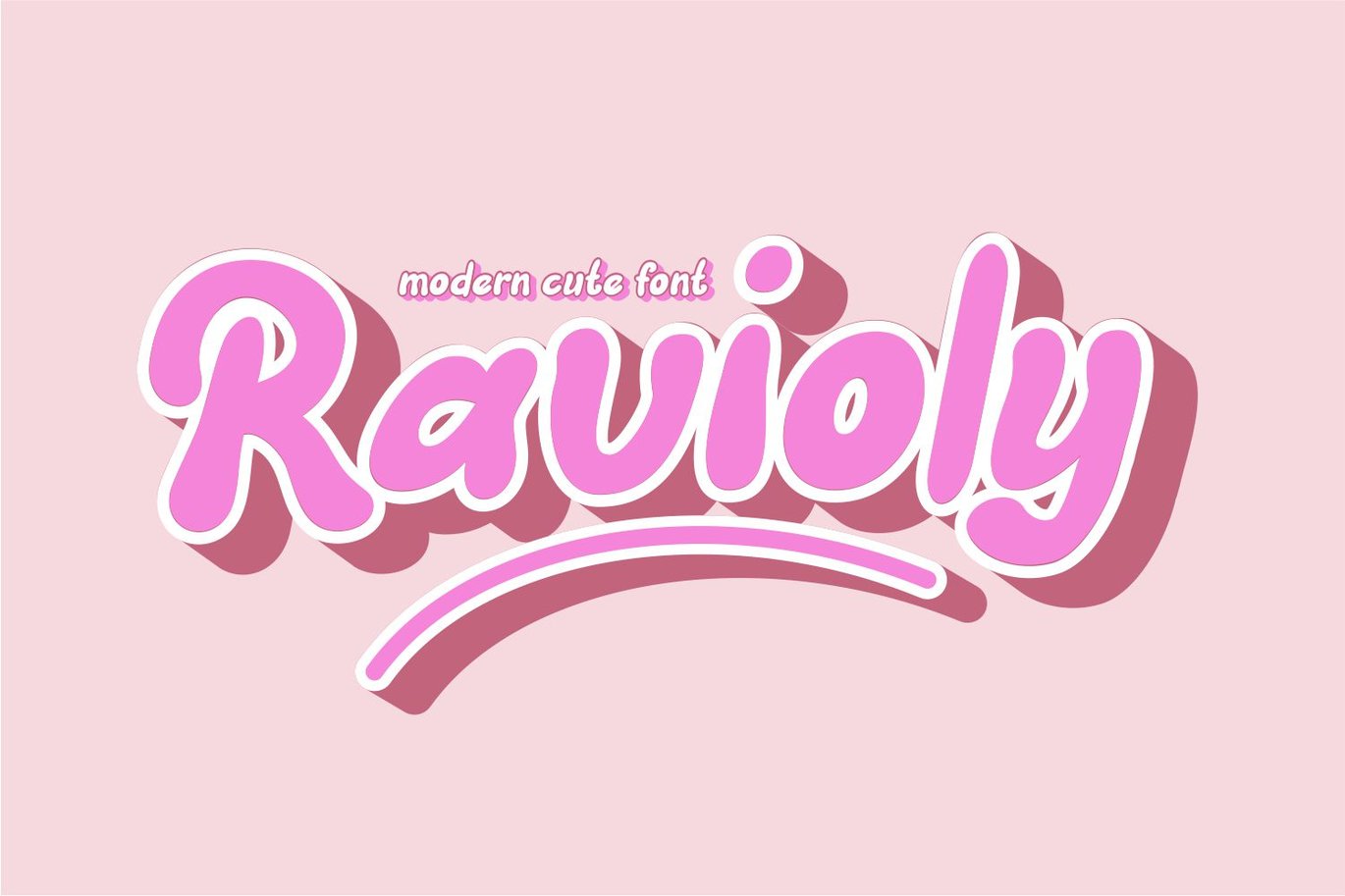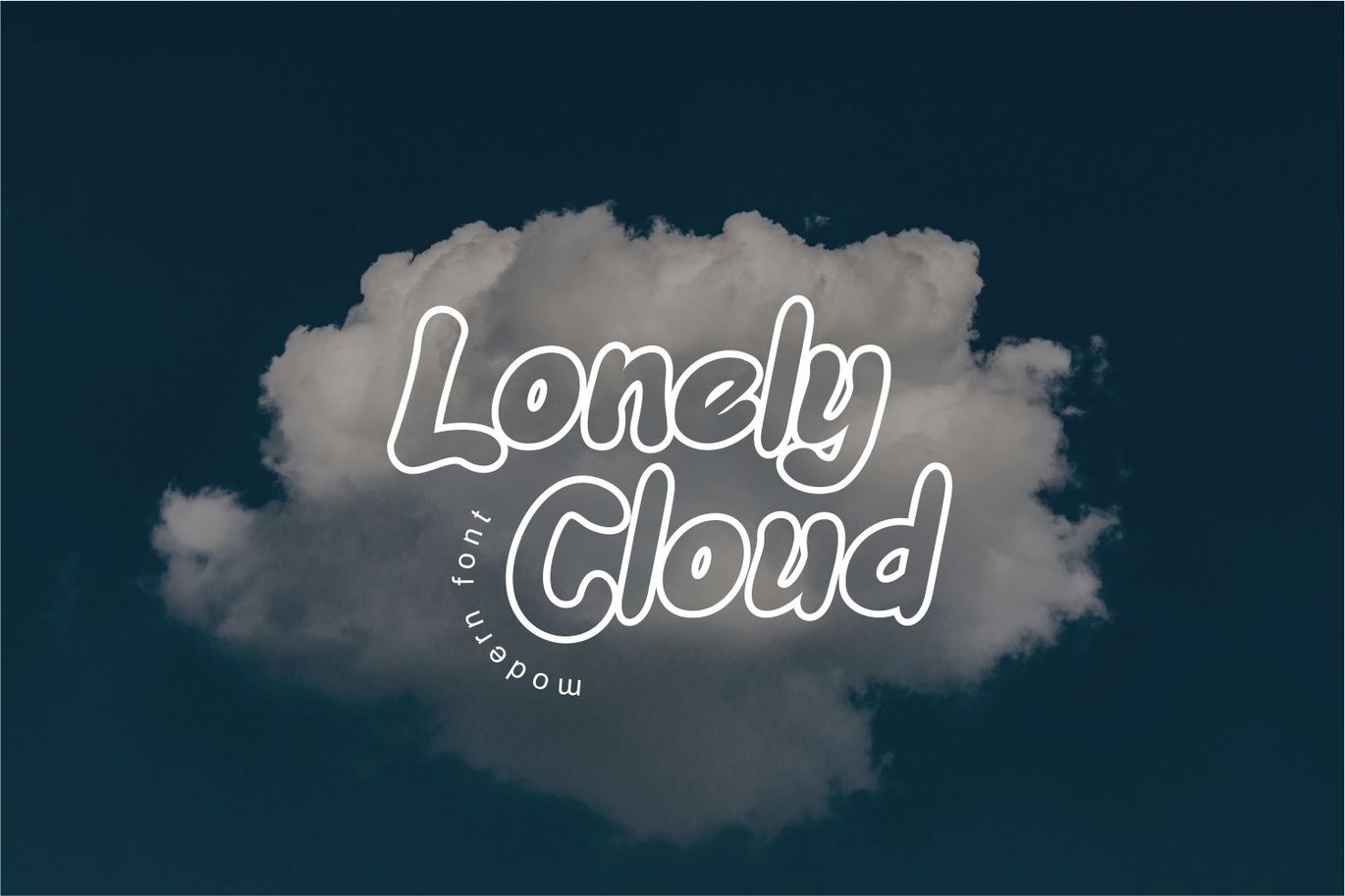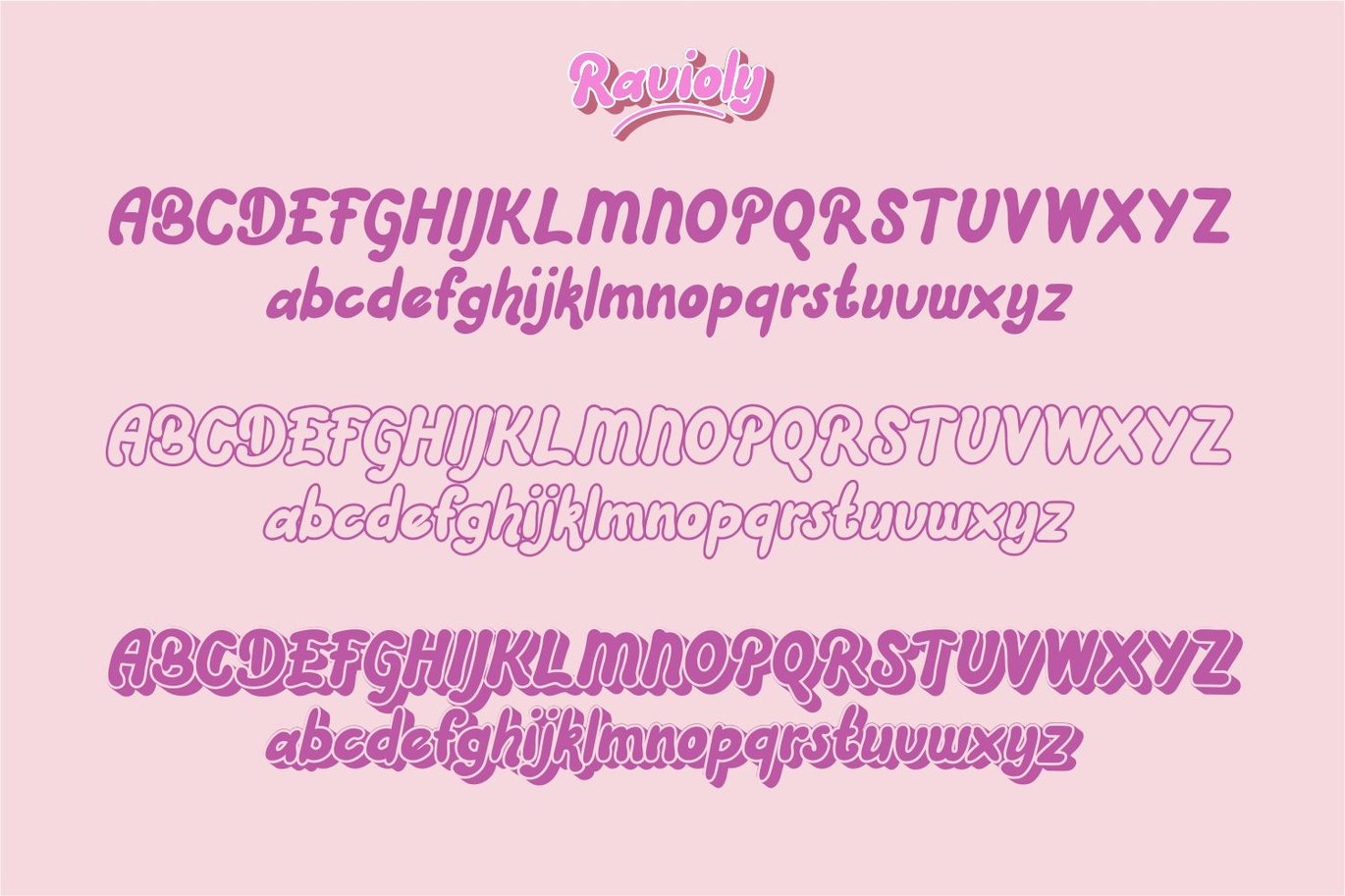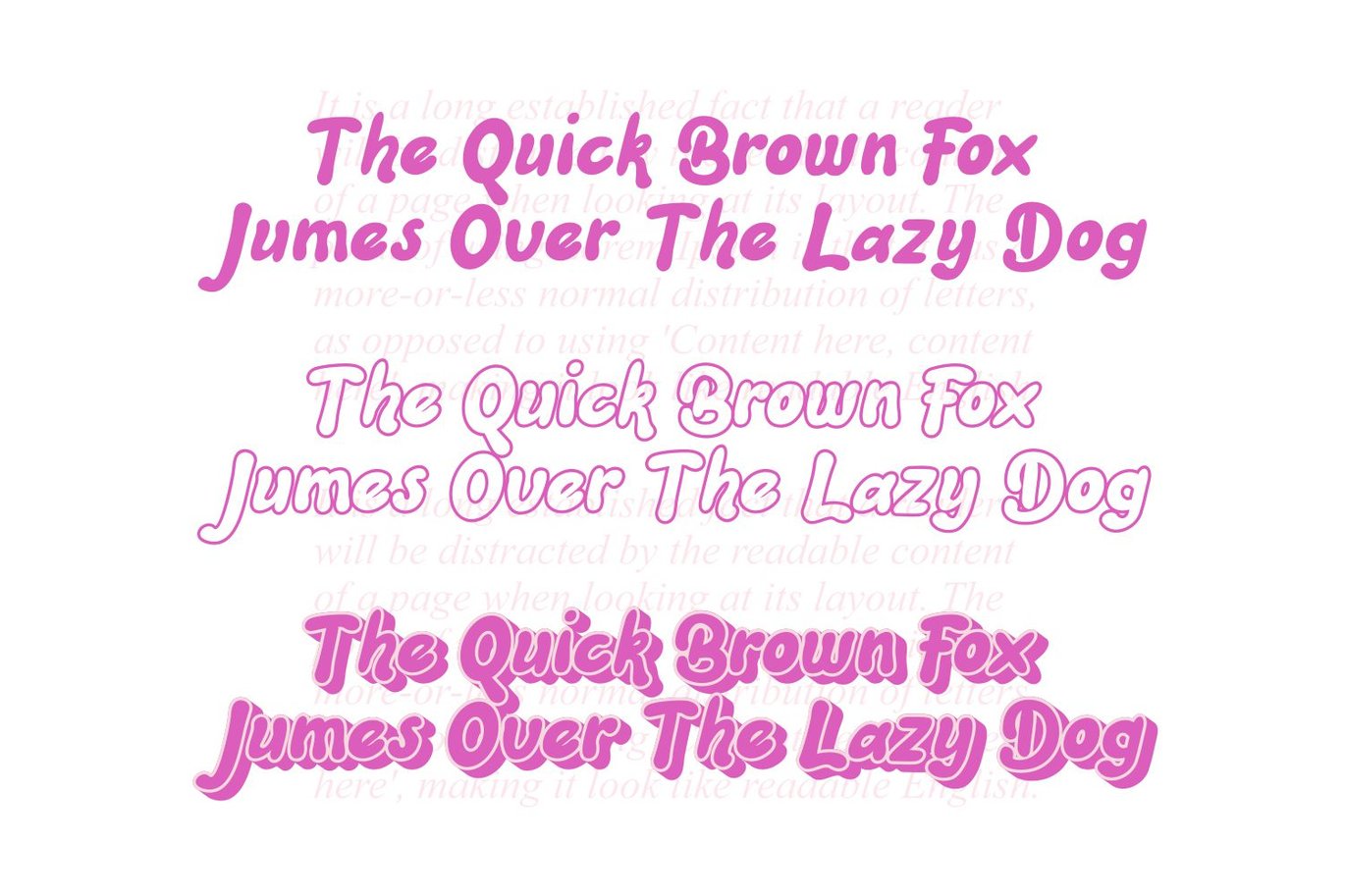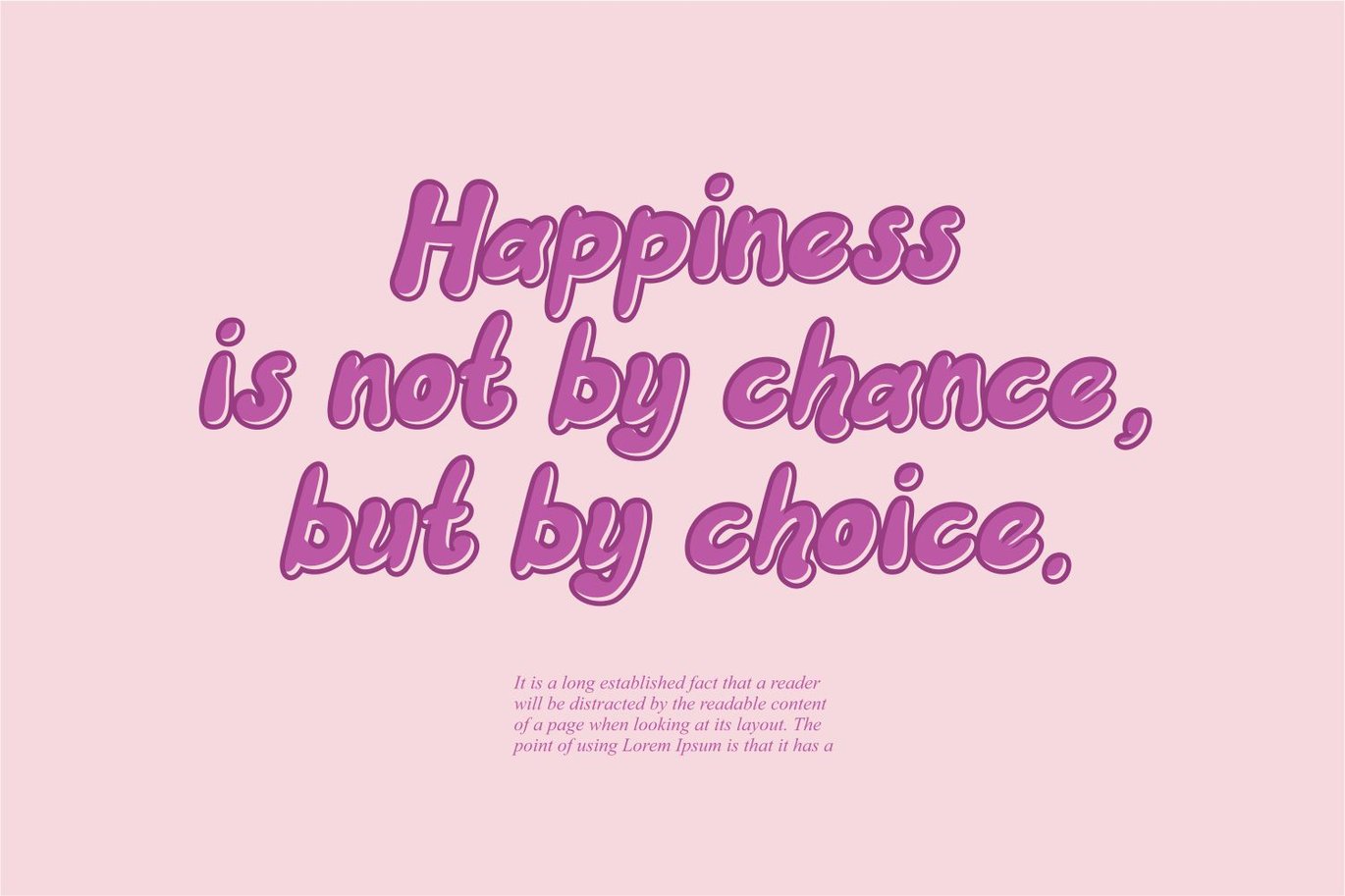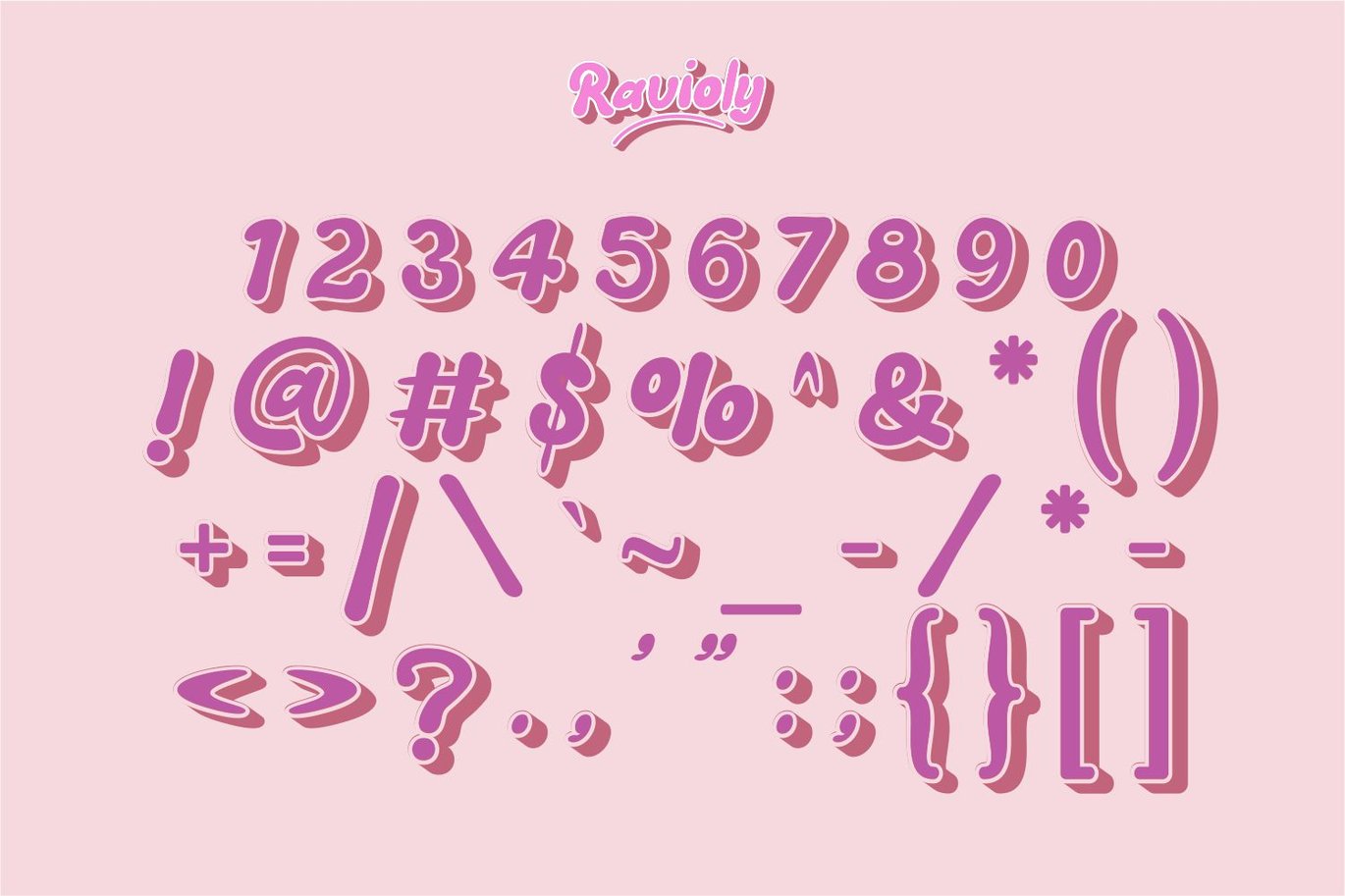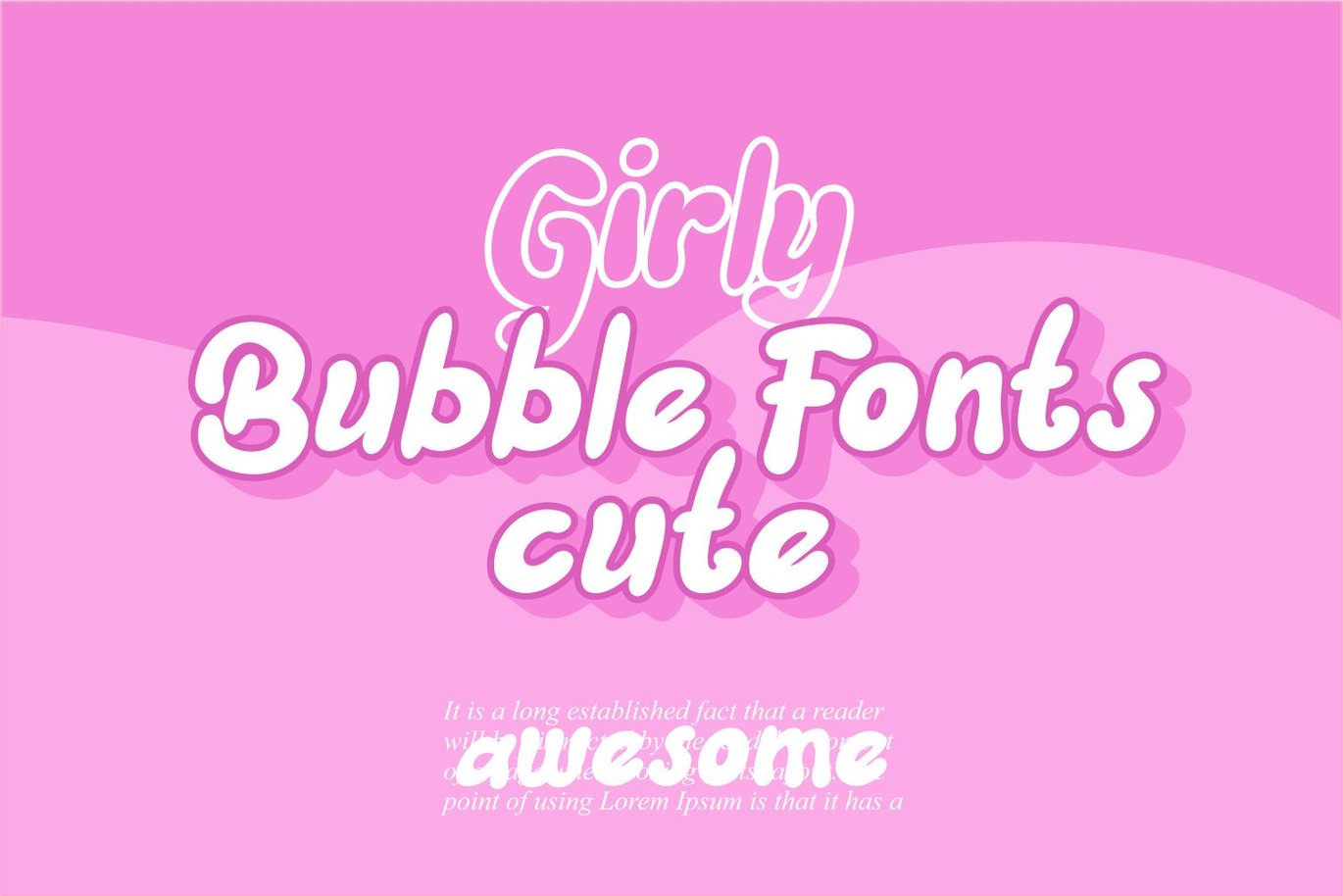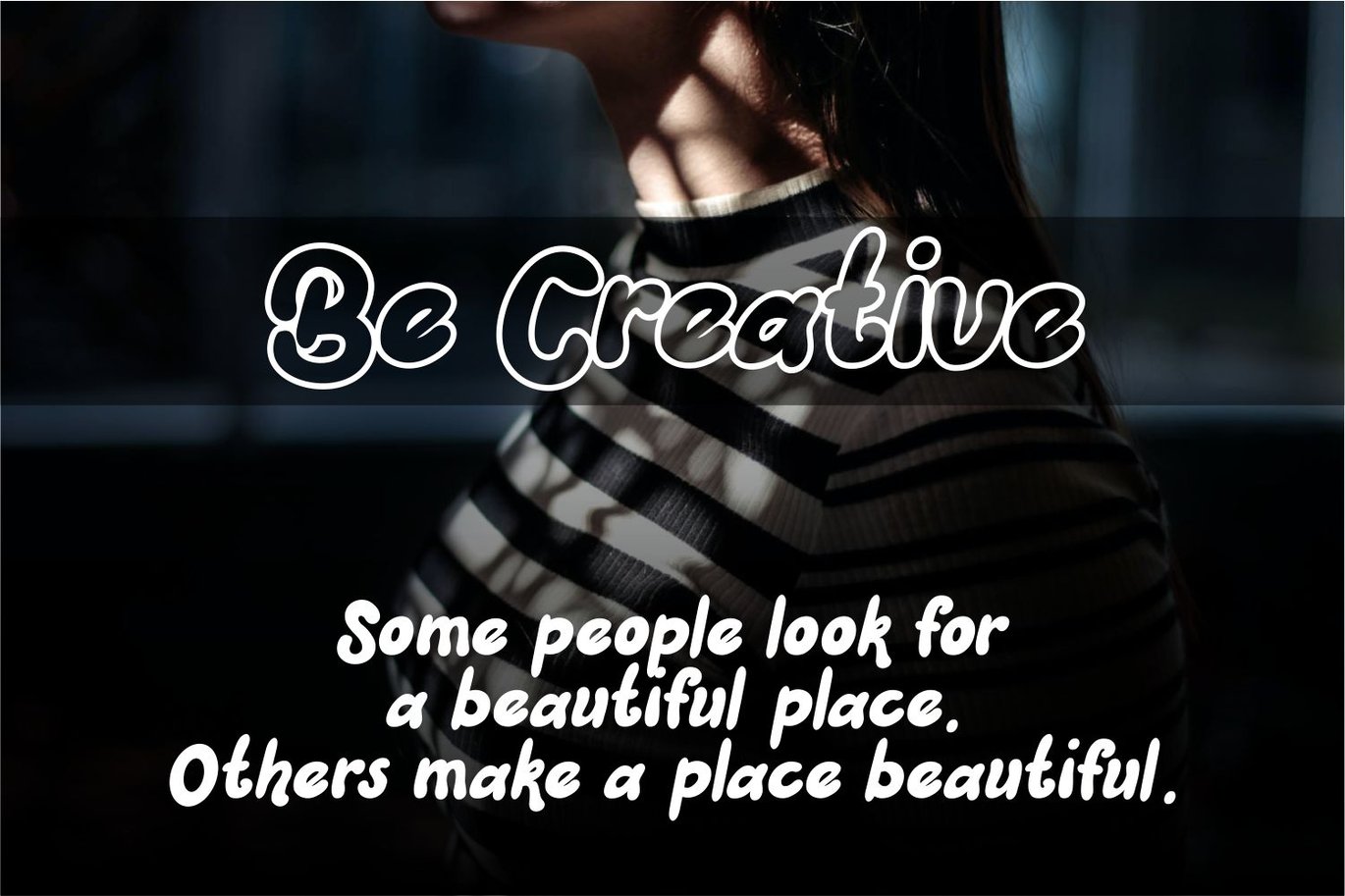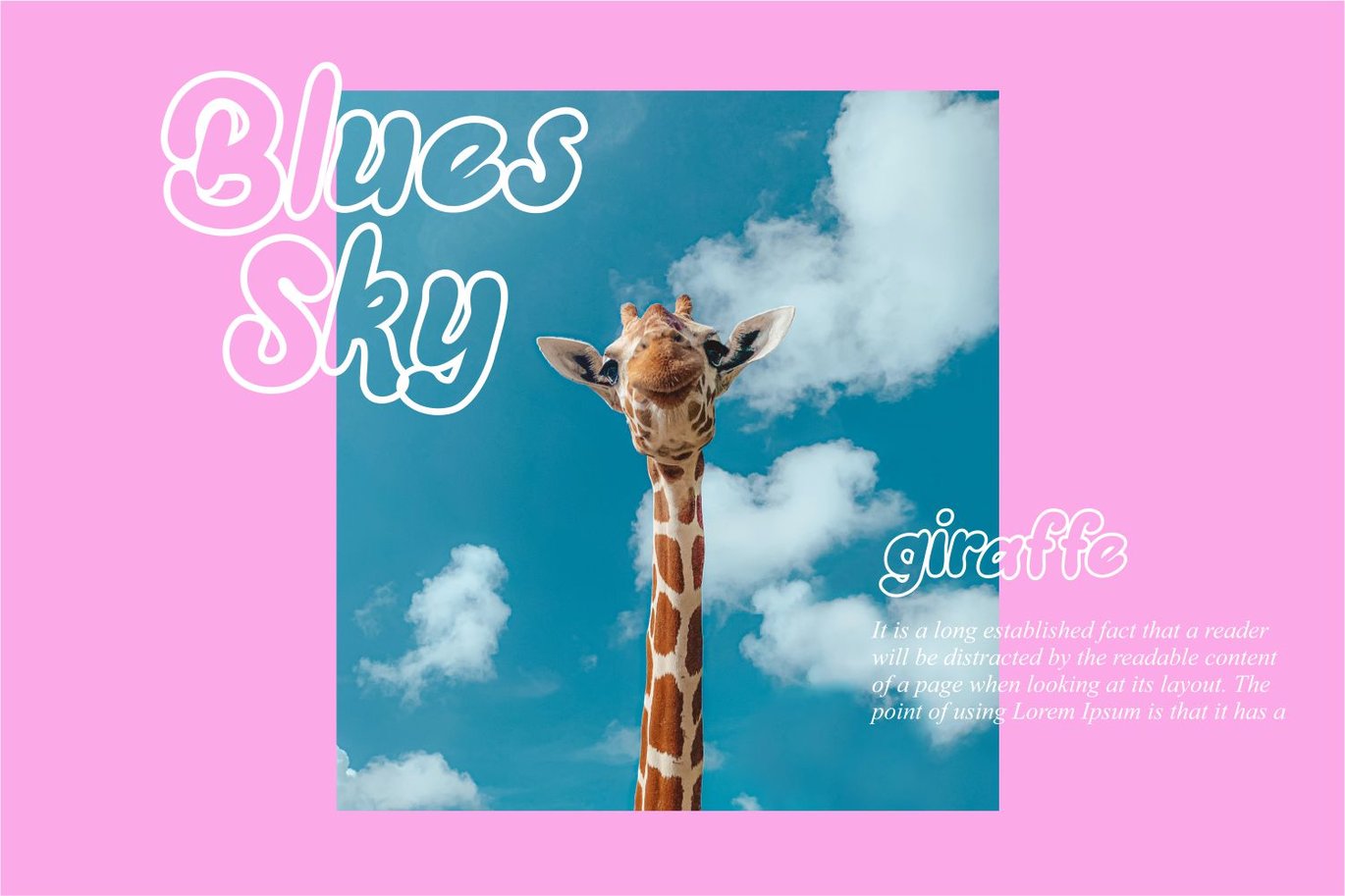
Font selection is not a trivial matter. There is standard, consideration, purpose, and meaning behind it. Typography influences consumer perception, making messages and communication directions sharper. Unfortunately, typography is often underestimated and as a result most ads are visually sluggish.
This Ravioly font belongs to the categories Display font, Fancy font, Retro font, and Bubble font. where I as a creator in my work deliberately combine 4 font elements into one applicable font form.
Ravioly font is highly recommended in its use for typesetting headings, not for long text. These font types are generally.
This decorative font is quite unique, and sometimes it is often used according to brand or logo requirements. This font can add personality to your business. The personality that I can explain to you interpretatively is the impression of being cheerful, energetic, applicable, and resilient, just like the Cooper Black font which does take elements from the font.